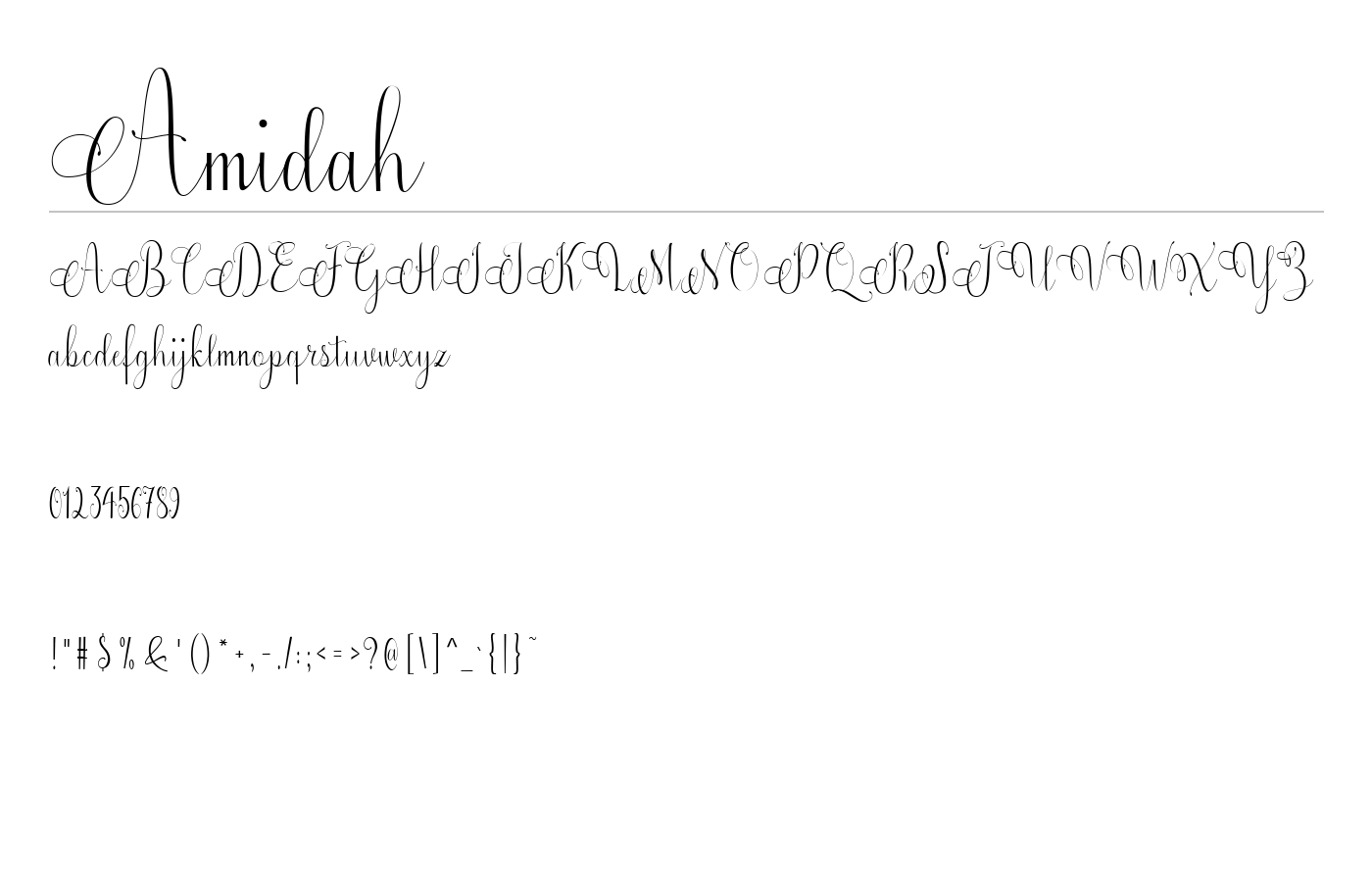
Amidah is a delicate and elegant script font characterized by its thin, flowing strokes and ornate, swirling details, especially in the uppercase letters. Its tall, narrow letterforms and high contrast create a refined, graceful look that suits luxurious and sophisticated design contexts such as wedding invitations, upscale branding, and decorative headlines. This font’s artistic flair adds a touch of romance and charm, making it ideal for projects that require a feminine and stylish touch.
Amidah Font